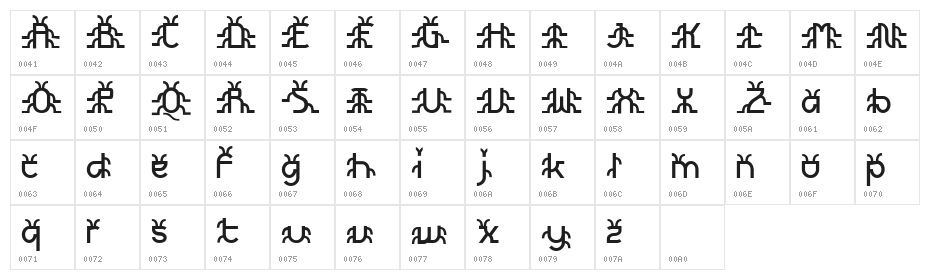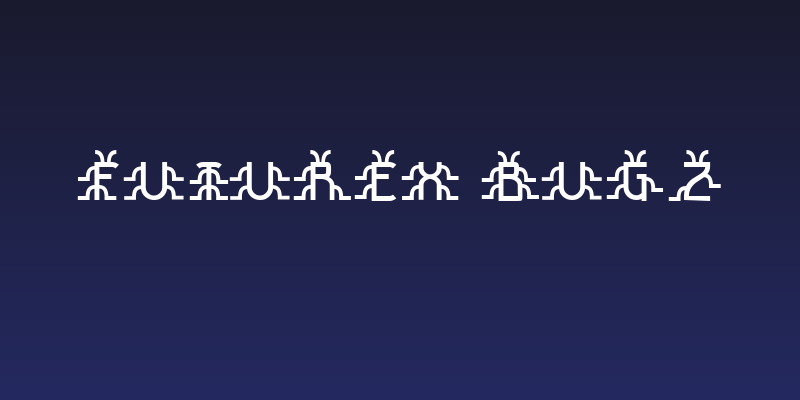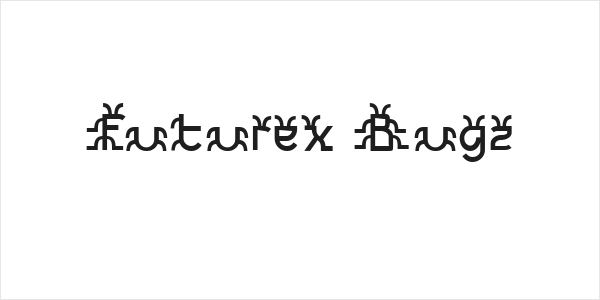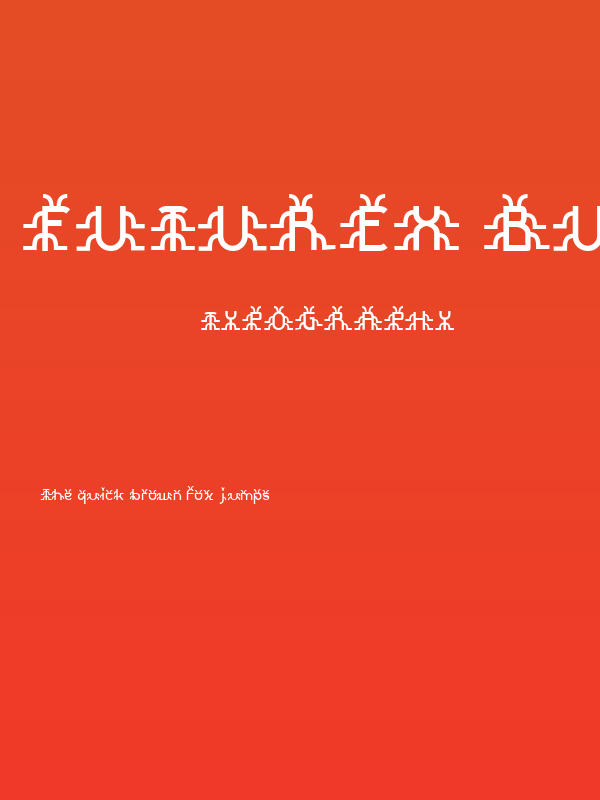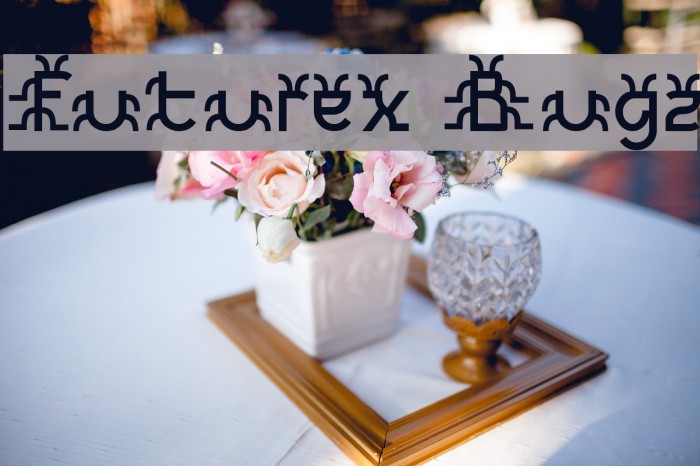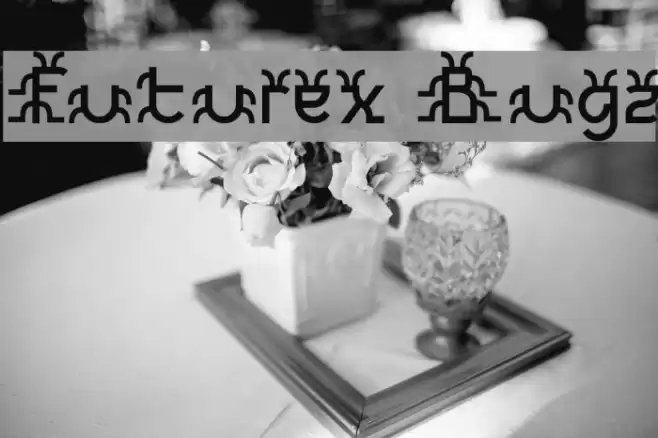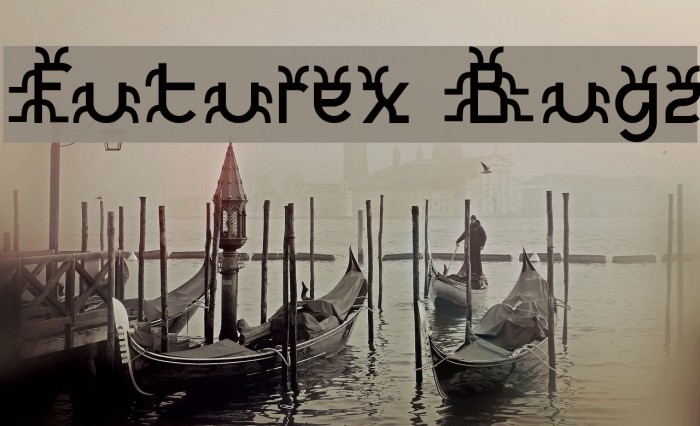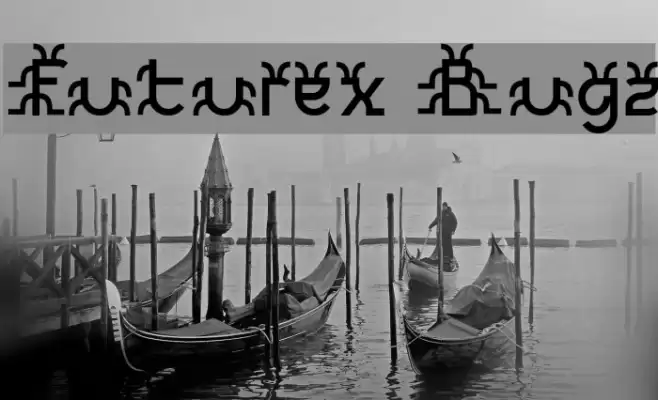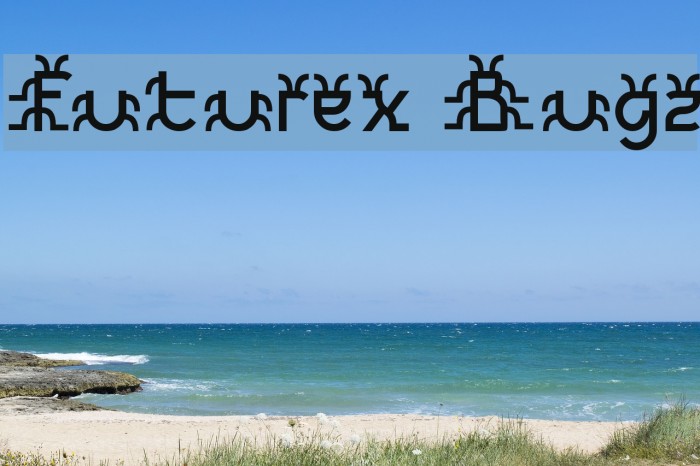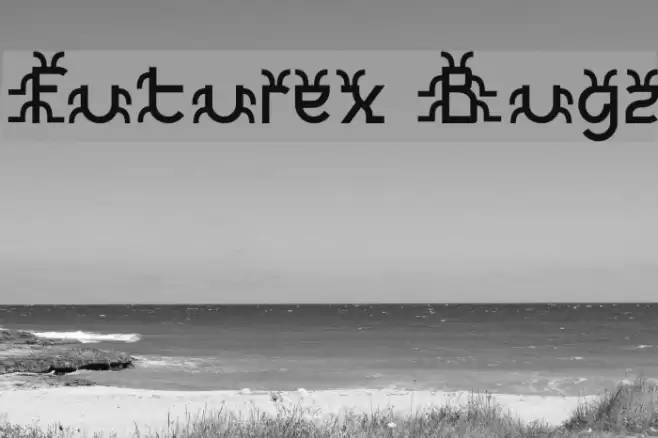
Futurex Bugz Font
Futurex Bugz Description
This font features a highly decorative and futuristic style, characterized by its unique and abstract letterforms. The characters exhibit a blend of geometric shapes and intricate details, creating a visually striking appearance. The uppercase and lowercase letters maintain a consistent design theme, with each character displaying a distinct and artistic flair. The font's bold strokes and elaborate curves make it stand out, while the overall design suggests a modern and avant-garde aesthetic. This font is ideal for projects that require a strong visual impact and a touch of creativity.
| Overall Style | Futuristic, Avant-garde |
| Use Case | Logos, Posters, Creative Branding |
| Proposed Projects | Ideal for sci-fi themed designs, futuristic branding, creative posters, and unique logo designs. |